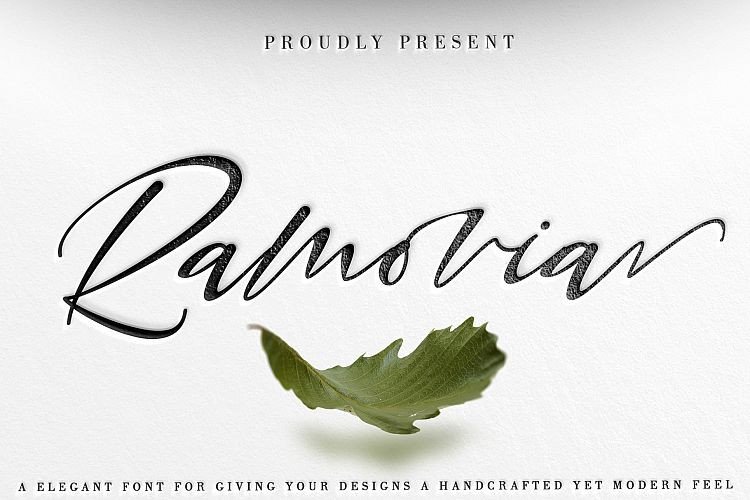
Ramovia Script Font
This is a modern script font by thomasaradea. Unique Handcrafted Script Font with a calligraphy style, perfect for creating patterns & backgrounds in your designs or headings on your menus. Introducing Ramovia Font. It’s an elegant font that gives designs a handcrafted yet modern feel.
This clean handwritten looks great in both modern and classic designs! Ramovia Script beautiful on invitation like greeting cards, branding materials, business cards, quotes, posters, and more!